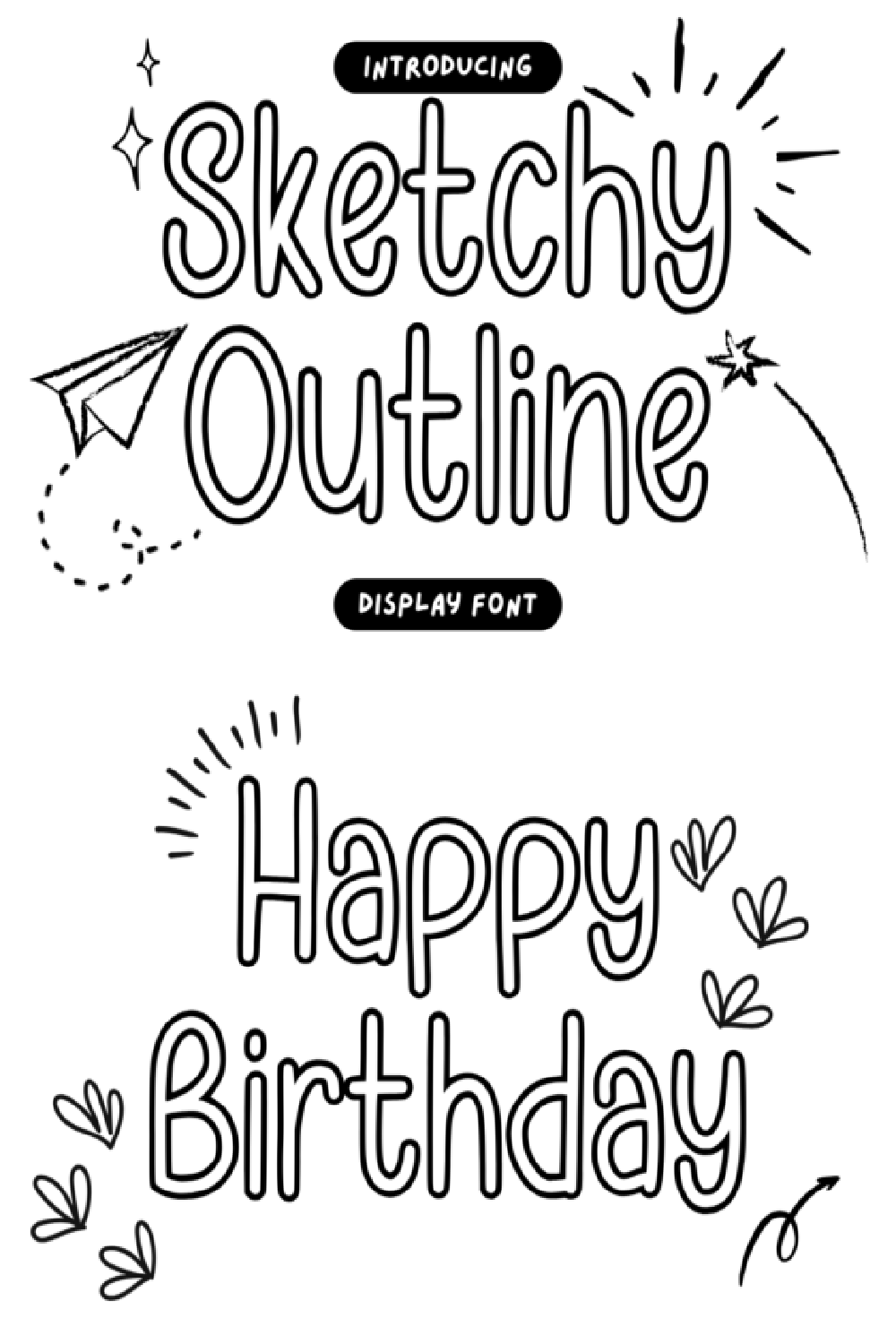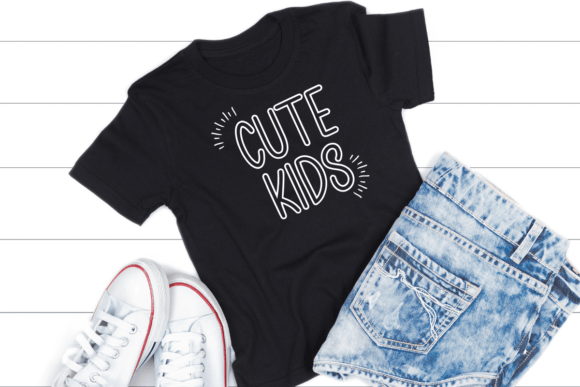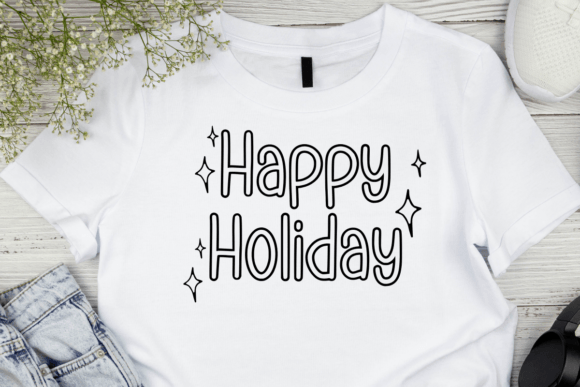
Sketchy Outline Font
About the Sketchy Outline Font
Crafted with precision, the Sketchy Outline Font is ready to bring your ideas to life. Sketchy Outline is a unique and cool display font. Whatever the topic, this font will be a great asset to your font library, as it has the potential to enhance any creation.
Sketchy Outline Font Usage Examples